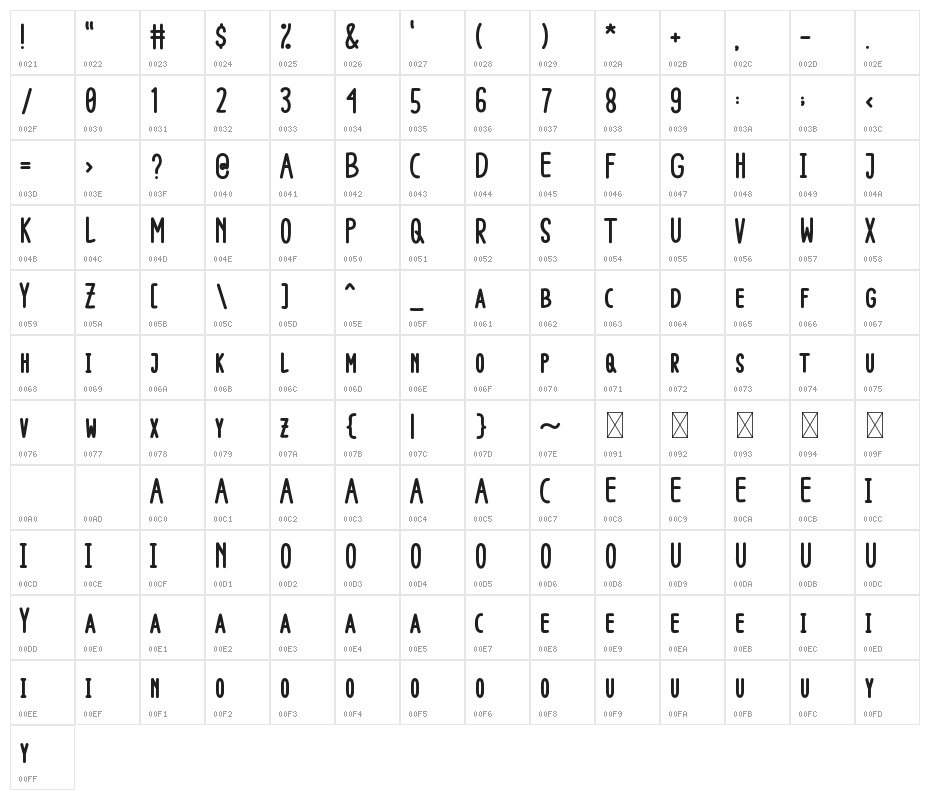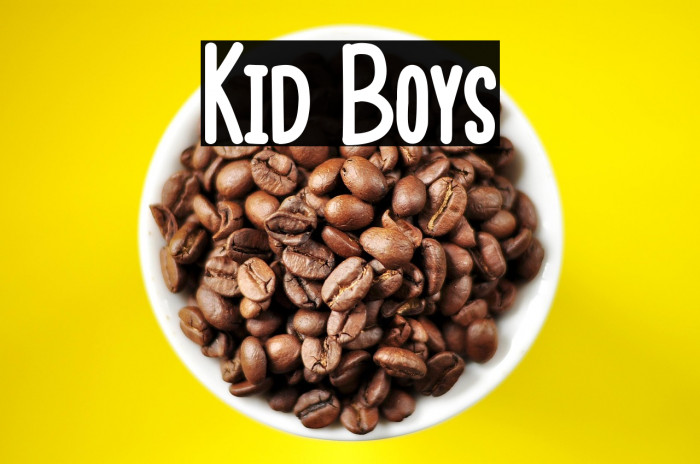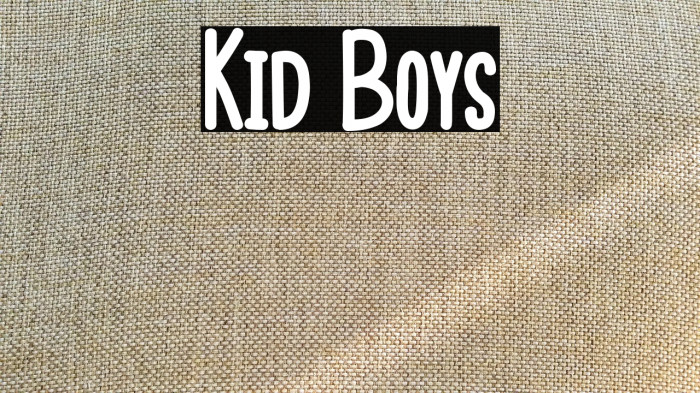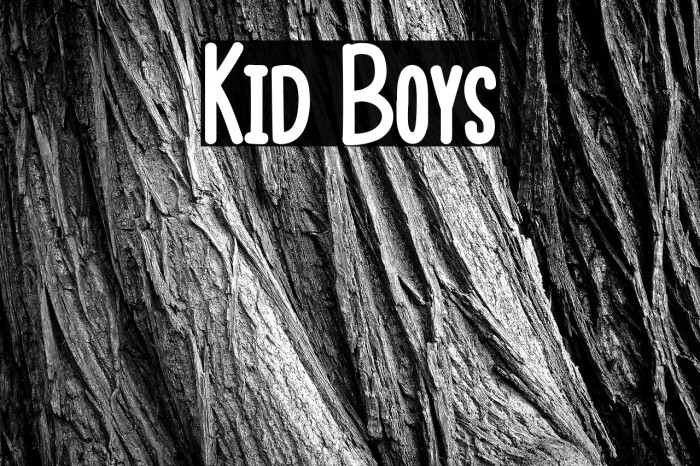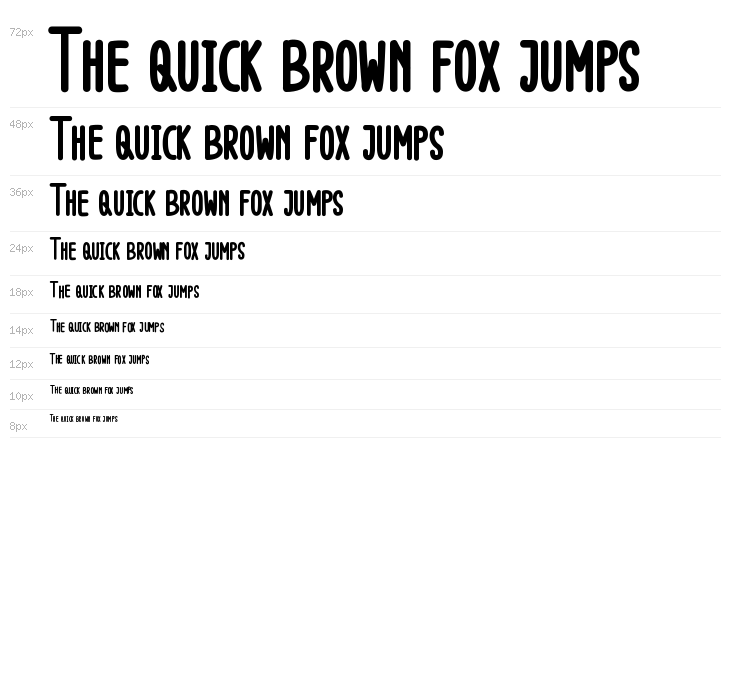
Kid Boys Font
Kid Boys Description
This playful and rounded font features a friendly and approachable style, perfect for children's materials. The letters are bold and slightly elongated, giving them a fun and whimsical appearance. The uniform stroke width and smooth curves contribute to its legibility, making it suitable for both headlines and body text in informal settings. The numbers and special characters maintain the same playful aesthetic, ensuring consistency across different types of content. Its simplicity and charm make it an excellent choice for projects aimed at younger audiences.
| Proposed Projects | Children's books, educational materials, toy packaging, kid-friendly websites, and playful branding. |